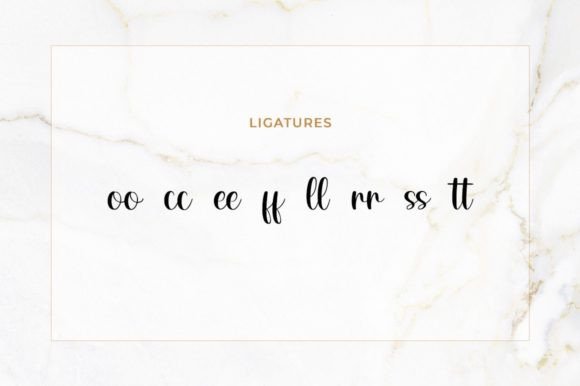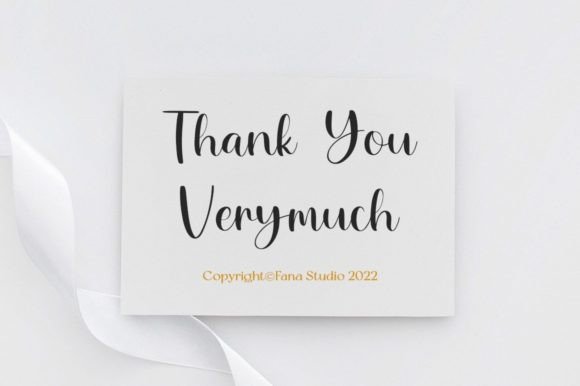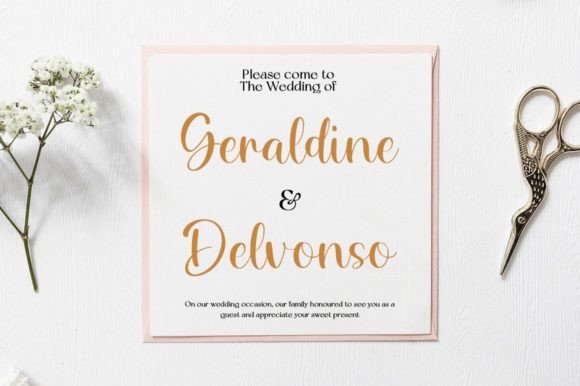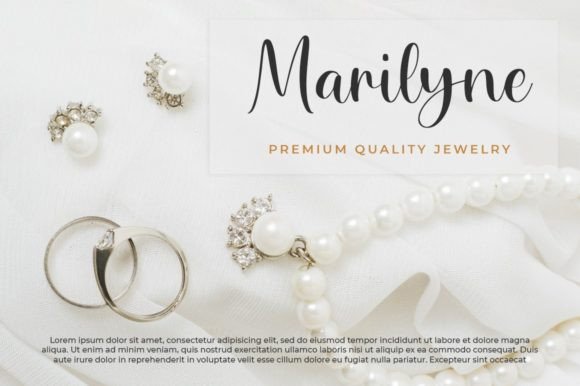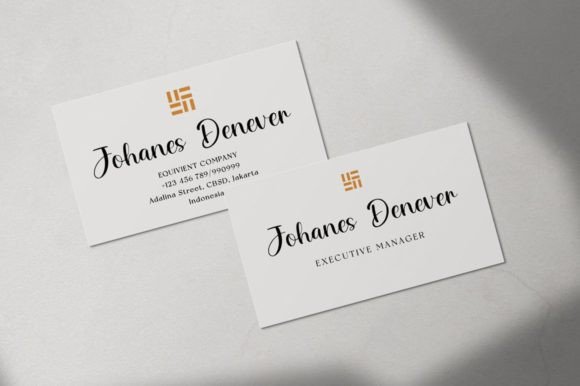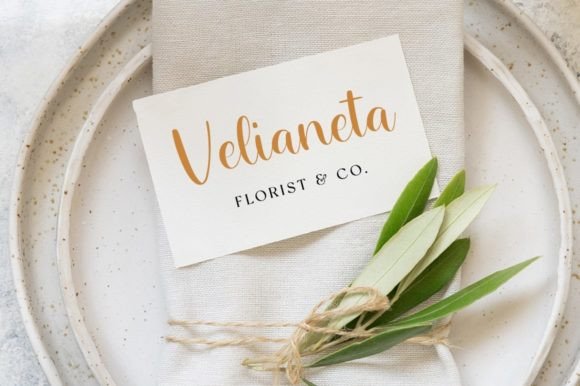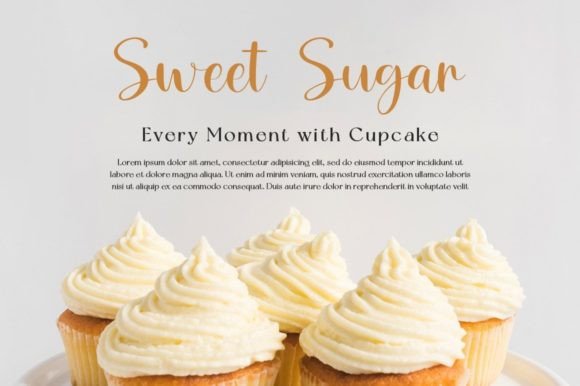
About Sprightly Font
“Sprightly” is a truly exquisite handwritten font, meticulously crafted to capture hearts and become an instant favorite among designers. Its elegant calligraphic influences are expertly balanced with a contemporary and fresh feel, making it a versatile choice for a wide range of creative projects.
This font effortlessly combines the timeless allure of classic calligraphy with a modern twist, creating a unique aesthetic that resonates with sophistication and style. Its graceful curves and flowing strokes add a touch of elegance to any text, enhancing the visual appeal of your designs.
Whether you’re working on wedding invitations, branding materials, packaging, social media graphics, or any other project that demands a touch of sophistication, “Sprightly” rises to the occasion. It has the ability to elevate your designs to new heights, making them stand out and leave a lasting impression on your audience.
The beauty of “Sprightly” lies not only in its elegant design but also in its versatility. It can be used for a wide array of applications, from formal events to contemporary digital media. Its timeless charm ensures that it remains relevant across various design contexts, making it a valuable asset for designers and creatives.
Embrace the allure of “Sprightly” and infuse your projects with a touch of sophistication and freshness. Let its graceful letterforms and contemporary vibe breathe life into your designs, allowing your creativity to flourish and your projects to shine at their brightest. Fall in love with the charm of “Sprightly” and watch as your designs reach new heights of elegance and allure.